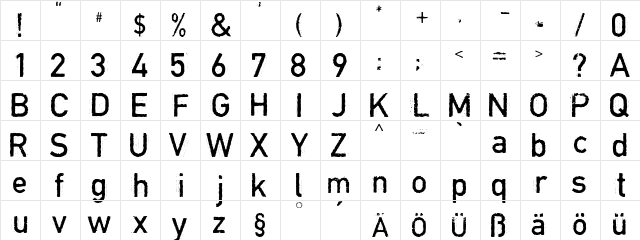
Copystruct Normal Free Font
Copystruct Normal
Design Context for Copystruct
Copystruct is a composed and adaptable typeface that performs quietly and consistently across a wide range of design contexts.